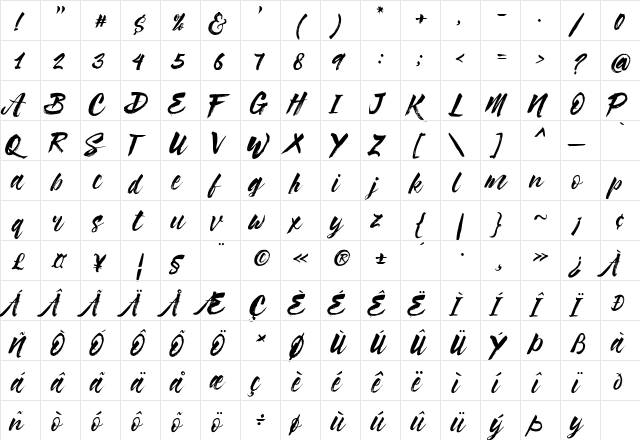
Syabab Brush Script Regular
Design Context for Syabab Brush Script Typeface
Syabab Brush Script brings a calligraphic fluidity to the page — its connecting strokes and expressive curves give it an unmistakably human quality.
Font Pairing: Combine Syabab Brush Script with a simple geometric sans for maximum contrast — the tension between flowing curves and clean structure is a classic typographic pairing.
Pro Tip: Pair Syabab Brush Script with a clean sans-serif for supporting text. The contrast between fluid script and geometric structure creates an elegant typographic hierarchy.